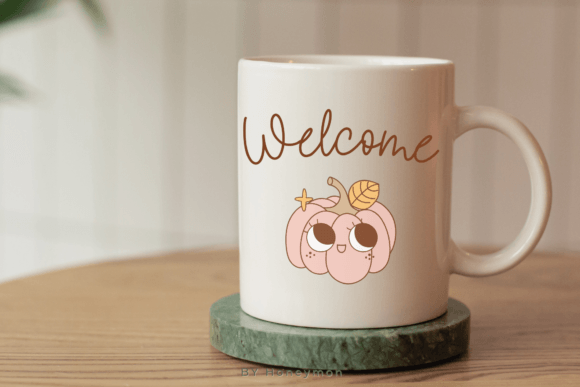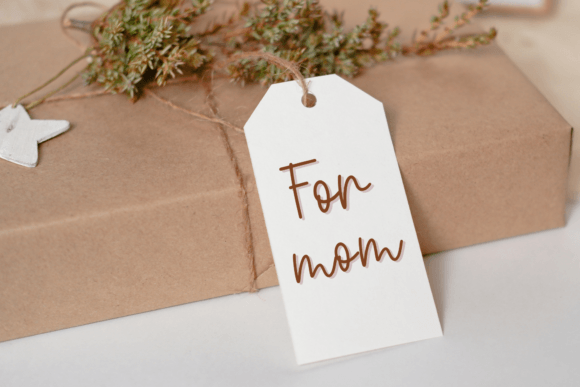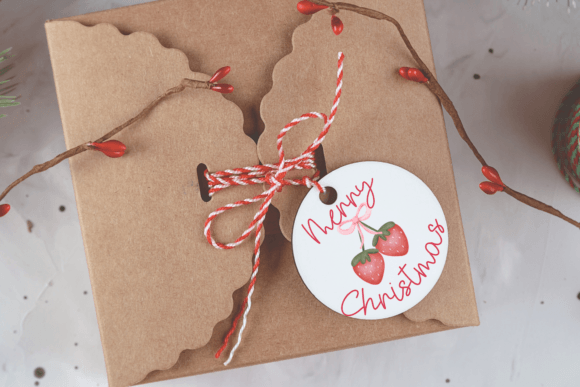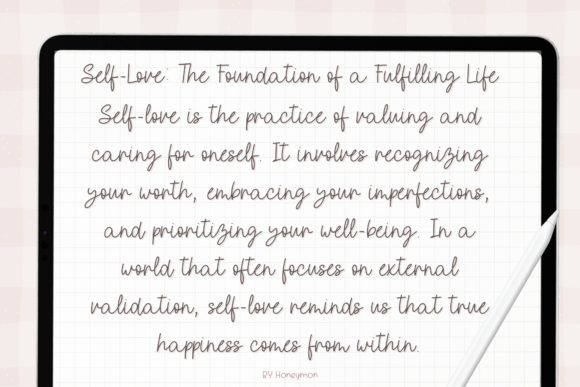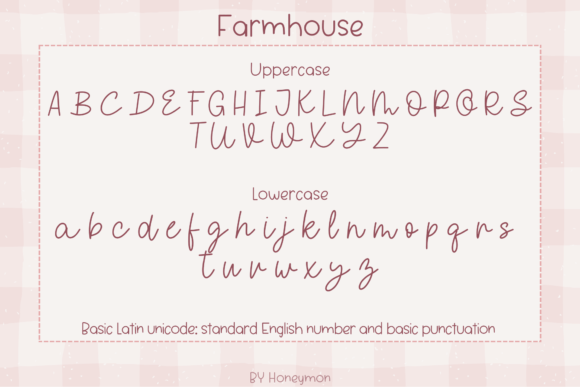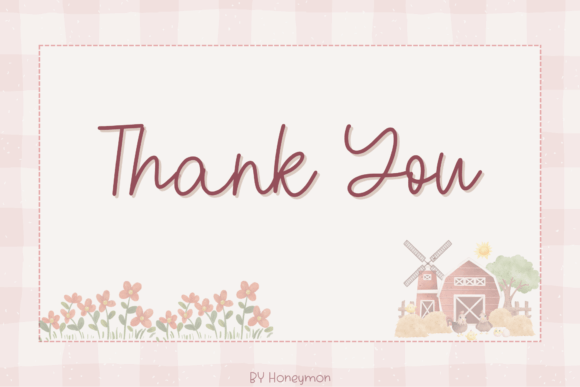
Are you tired of using the same old fonts in your designs? Look no further! We’re excited to introduce Farmhouse, a beautifully crafted script font that embodies the perfect blend of charm, whimsy, and elegance. This adorable font is sure to capture the hearts of designers, crafters, and anyone looking to add a touch of personality to their creative projects.
The Charm of Farmhouse Font
Farmhouse is an effortlessly adorable script font that exudes a sense of casual elegance, making it perfect for a wide range of design applications. From branding and packaging to invitations and social media graphics, this font is sure to add a playful personality that captivates and engages your audience. With its enchanting essence of a handwritten note, Farmhouse brings a sense of warmth and approachability to your designs, making them feel more relatable and human.
- Effortlessly Adorable: Farmhouse boasts a charming and whimsical design that’s sure to capture attention and evoke emotions.
- Casual Elegance: This script font adds a layer of sophistication to your designs, making them perfect for a wide range of creative projects.
- Playful Personality: Farmhouse has a unique personality that shines through in every letter, making your designs feel more engaging and interactive.
- Handwritten Essence: With its handwritten note-inspired design, Farmhouse brings a sense of authenticity and warmth to your designs.
Farmhouse is an ideal font for designers and crafters looking to add a personal touch to their creative projects. Whether you’re working on a branding campaign, creating social media graphics, or designing invitations, this font is sure to bring your vision to life. Its versatility and charm make it perfect for a wide range of design applications, including:
- Branding and Packaging: Use Farmhouse to create eye-catching logos, labels, and packaging that stands out on store shelves.
- Invitations and Stationery: Add a touch of elegance and whimsy to your invitations, greeting cards, and stationery with Farmhouse.
- Social Media Graphics: Create engaging social media graphics, including Facebook posts, Instagram stories, and Twitter headers, with Farmhouse.
- Crafting and DIY Projects: Use Farmhouse to add a personal touch to your crafting and DIY projects, such as handmade cards, scrapbooking, and more.
In conclusion, Farmhouse is a beautifully crafted script font that’s sure to capture the hearts of designers and crafters alike. With its effortlessly adorable design, casual elegance, and playful personality, this font is perfect for adding a touch of charm and whimsy to your creative projects. Whether you’re working on a branding campaign, creating social media graphics, or designing invitations, Farmhouse is the perfect tool to bring your vision to life.